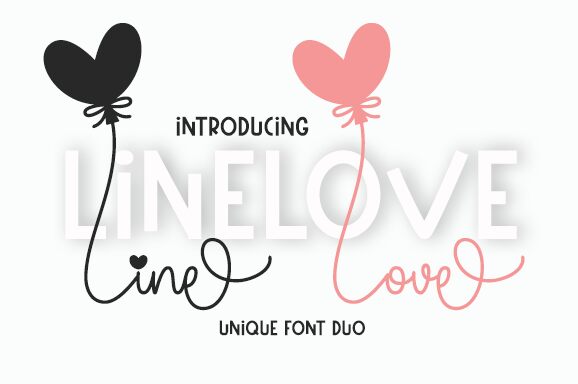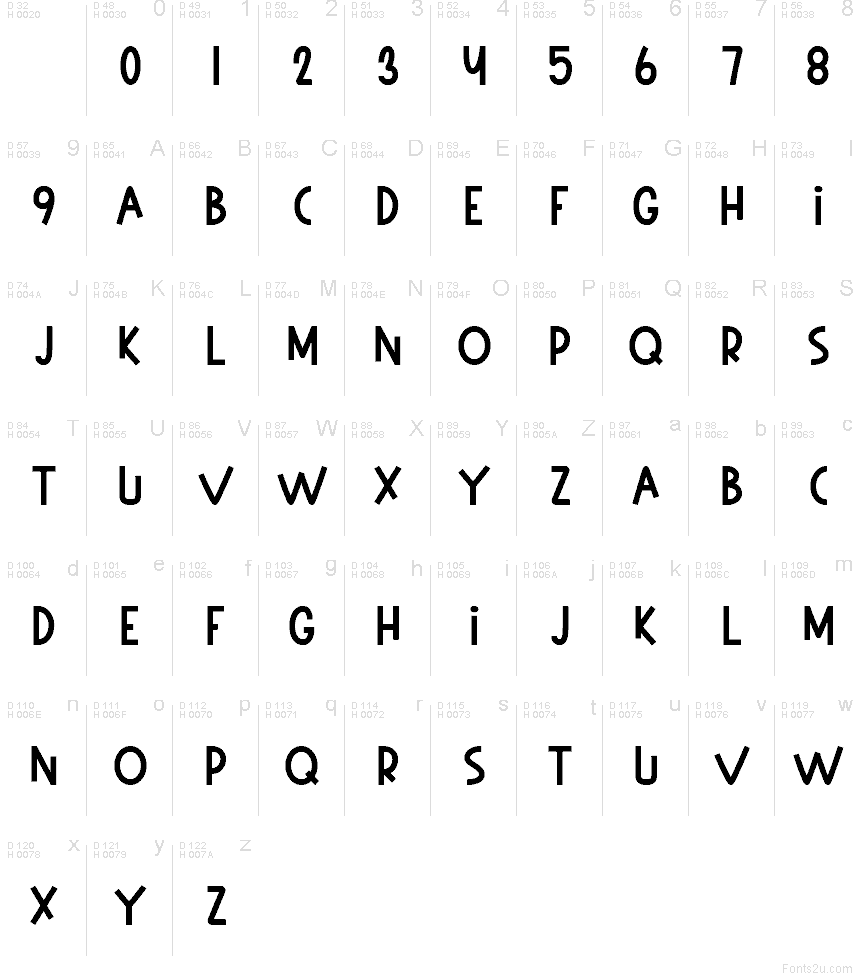
Line Love Display
Line Love Display font by Fillo Graphic is a free decorative display typeface with long, lean letters and sharp, chiseled angles that feel straight off a vintage marquee. The narrow forms stack into a tight rhythm, so words look like a sleek vertical pattern rather than a loose line of text. There’s a hint of Art Deco glamour in the pointed tops and geometric curves, giving headlines a bold, stylish edge without feeling stuffy.
Using Line Love Display, titles instantly grab attention on posters, book covers, album art, branding for bars or salons, product packaging, and dramatic social media graphics. This free font thrives at large sizes where its tall proportions and crisp cuts can really show off. Pair it with a simple sans serif for body copy and let Line Love Display carry the main wordmark or headline.